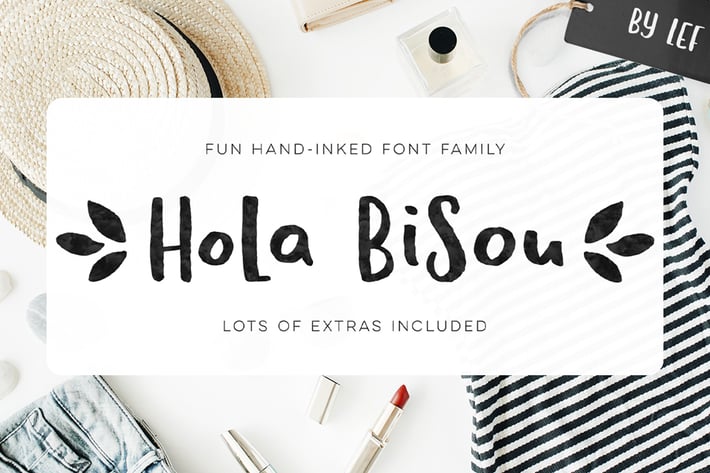
Hola Bisou - Handlettered ink font
★ Hola Bisou! ★ A handinked font family loaded with extras ★
Hola Bisou is quirky and fun and has that perfect summer vibe if you ask me. I don't know about you but the summer sun really makes me feel like (shaving my legs and) like catching some waves! I added lots of extras for you to play with in this set.
What's in it?
The font fam